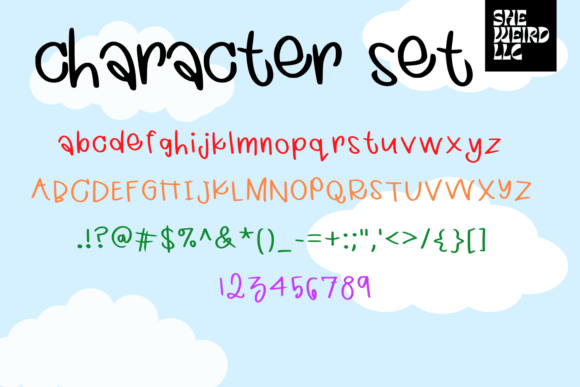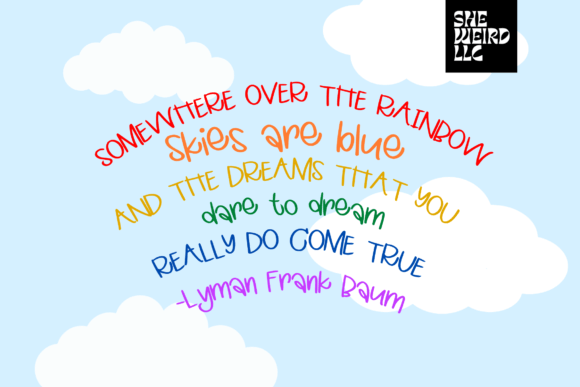
Introduction to Quirky Rainbow Font Font
Fonts play a crucial role in design, and the Quirky Rainbow Font font is a typeface that brings both character and versatility to any project. Whether you’re working on a branding project, a website, or a print design, the Quirky Rainbow Font font offers a unique style that can elevate your work.
Quirky Rainbow is a handwritten font that is perfect for crafting, sublimation/vinyl quotes, branding, and all the summer dΓ©cor.
Whether youβre using it for crafts, digital design, presentations, or making greeting cards, this font has the potential to become your favorite go-to font, no matter the occasion .
Key Features of Quirky Rainbow Font Font
Why Choose Quirky Rainbow Font Font?
The Quirky Rainbow Font font is more than just a typeface β it’s a design tool that helps you communicate your message with style and clarity. Its unique character set and versatile design make it suitable for a wide range of applications, from elegant invitations to bold headlines.
With its carefully crafted letterforms and balanced proportions, the Quirky Rainbow Font font ensures readability and visual appeal across all mediums.
What makes Quirky Rainbow Font font special?
The Quirky Rainbow Font font stands out with its unique design, exceptional readability, and versatility across various design applications.